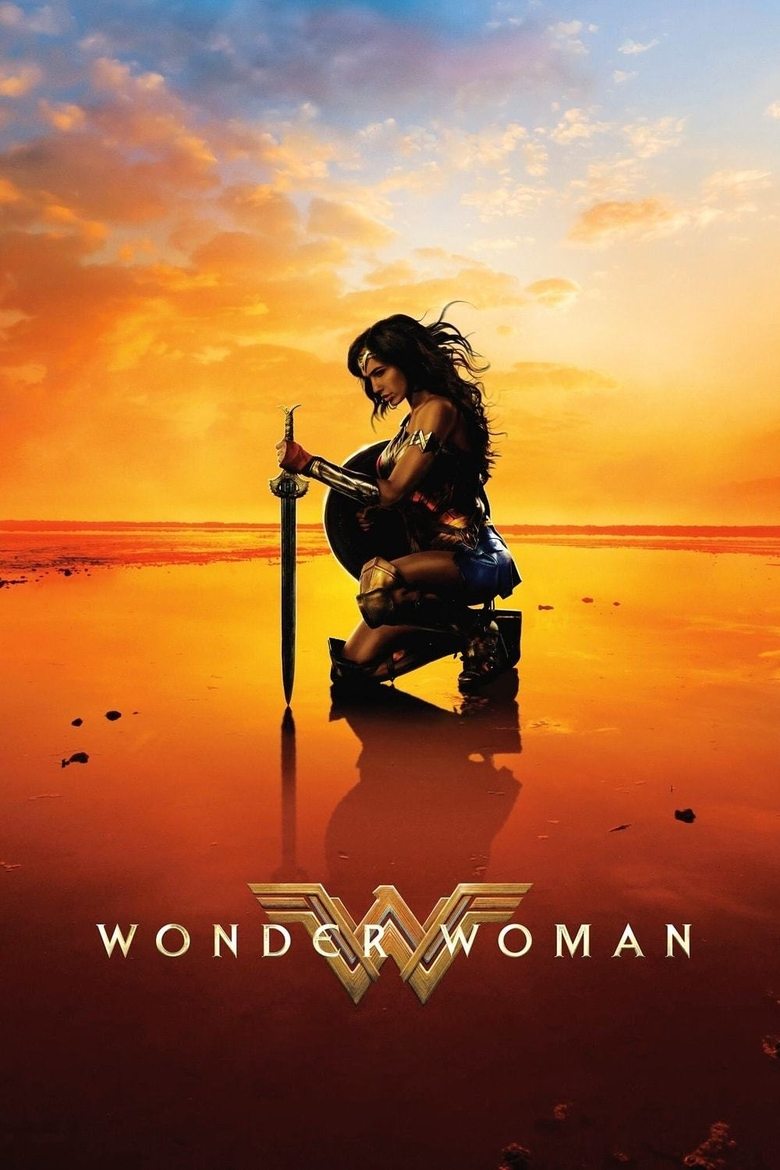
About the Wonder Woman font
Wonder Woman uses a heroic, engraved serif. Cinzel brings that same golden, Amazonian grandeur.
What font is used in the Wonder Woman logo?+
The original Wonder Woman logo uses custom lettering. This generator recreates the look with Cinzel — a free, open-license font you can style and download.